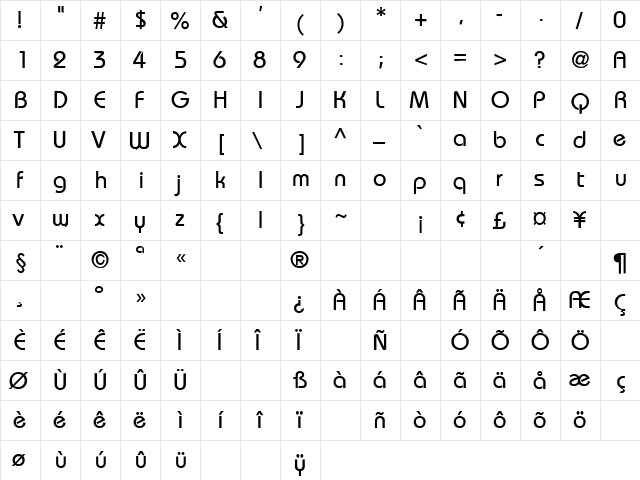
China Grove 9 Regular
Design Context for China Grove 9 Typeface
China Grove 9 takes a measured approach to typography — its balanced proportions and neutral character make it a reliable workhorse for both digital and print work.